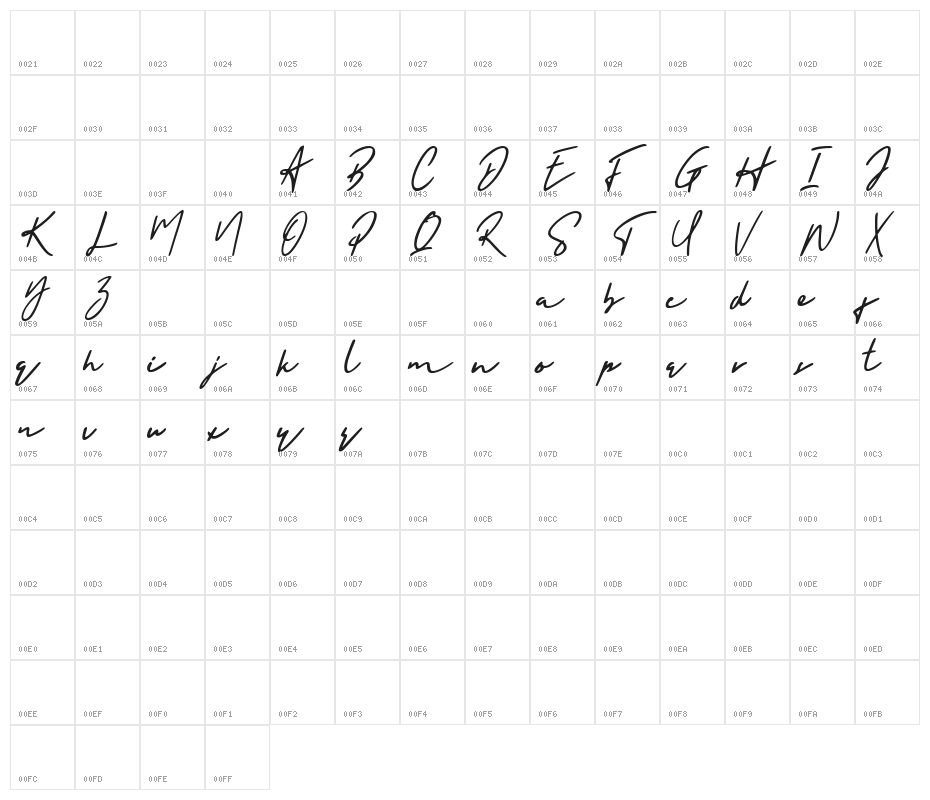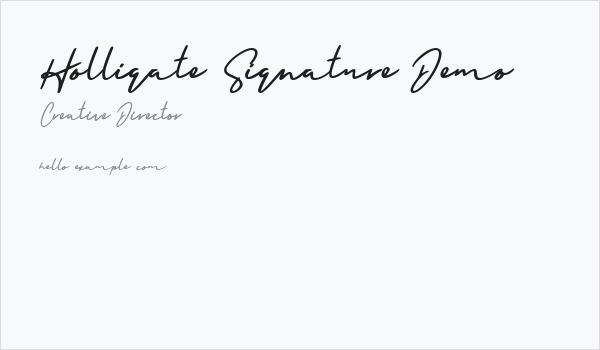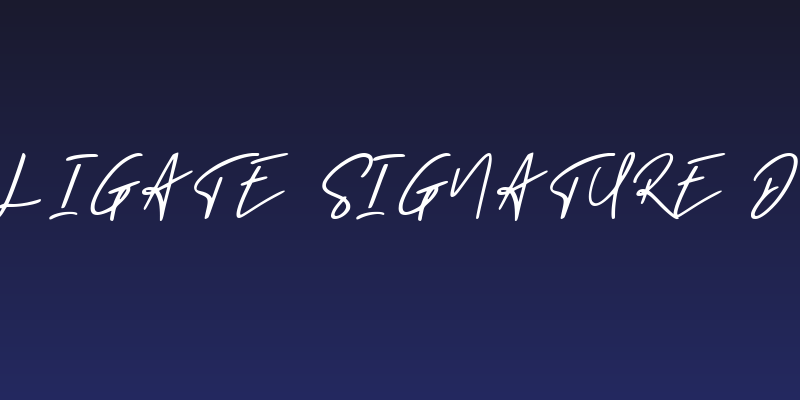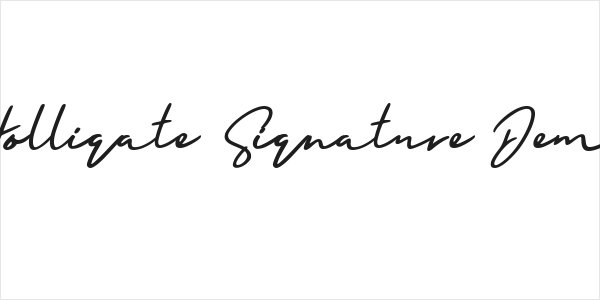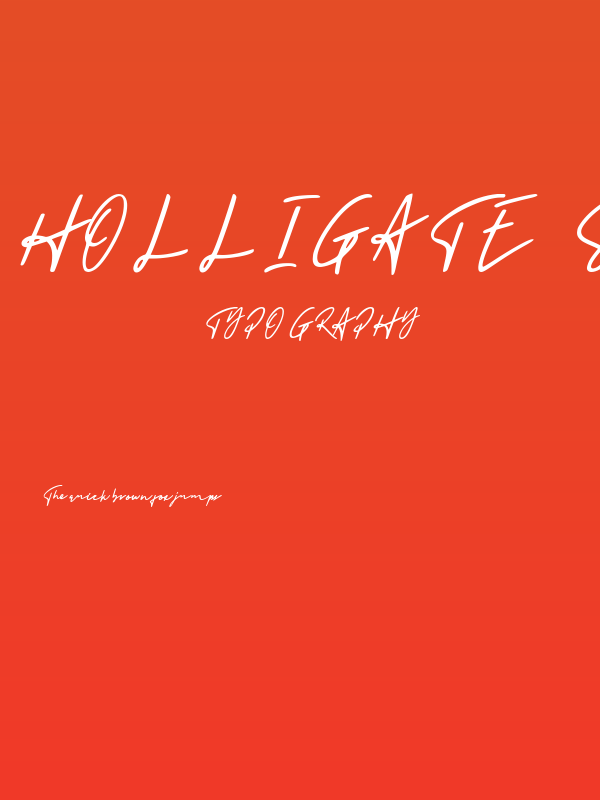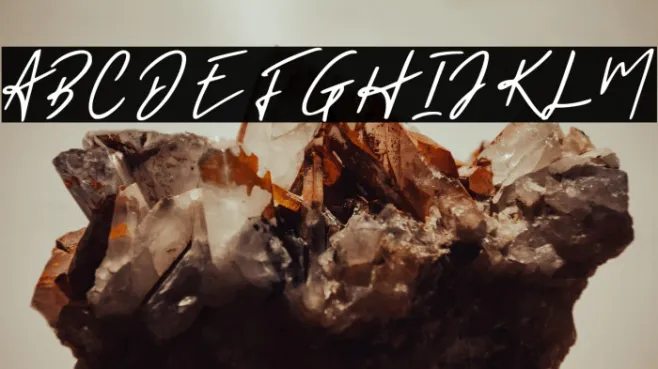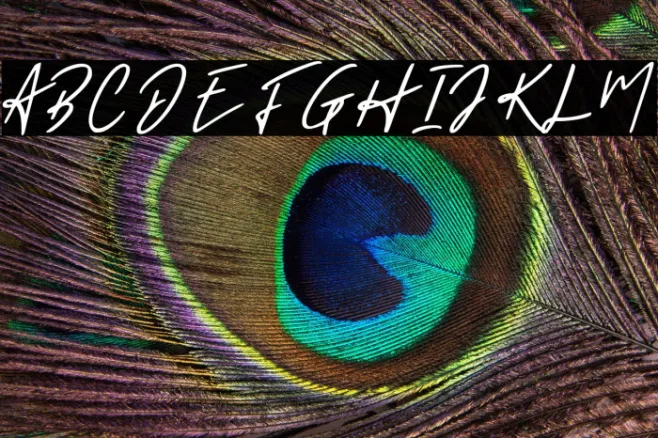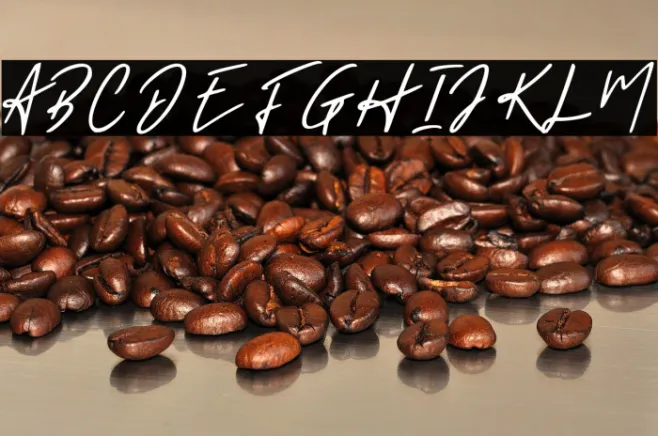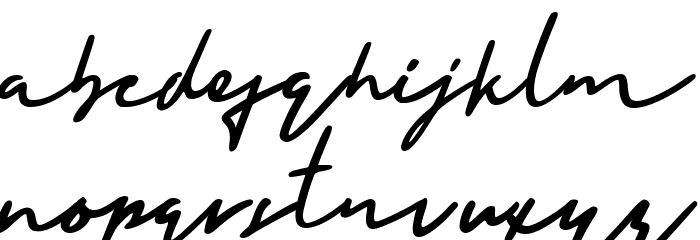
Holligate Signature Demo Font
Holligate Signature Demo Description
This font exudes a sophisticated and elegant style, characterized by its fluid, cursive script that mimics the natural flow of handwriting. The uppercase letters maintain a consistent height with graceful loops and curves, while the lowercase letters are more varied in height, adding a dynamic and lively touch. The strokes are smooth and connected, creating a seamless and continuous appearance. This font is perfect for adding a personal and artistic flair to any design, making it ideal for creative projects that require a touch of elegance and individuality.
| Proposed Projects | Ideal for wedding invitations, personal branding, signature logos, and elegant stationery. |